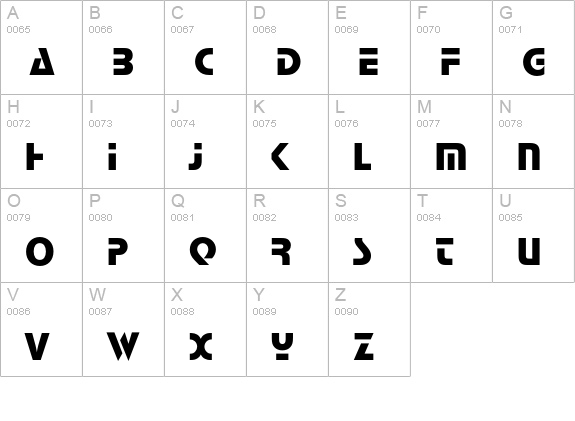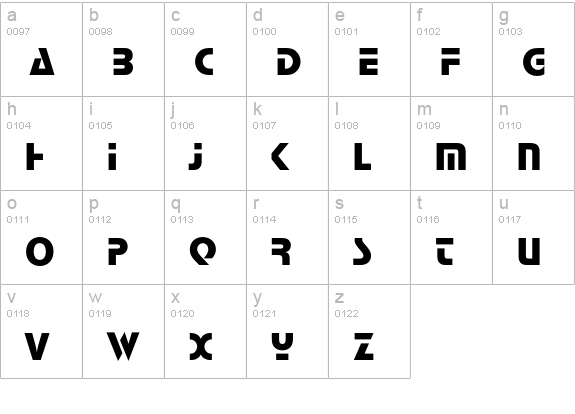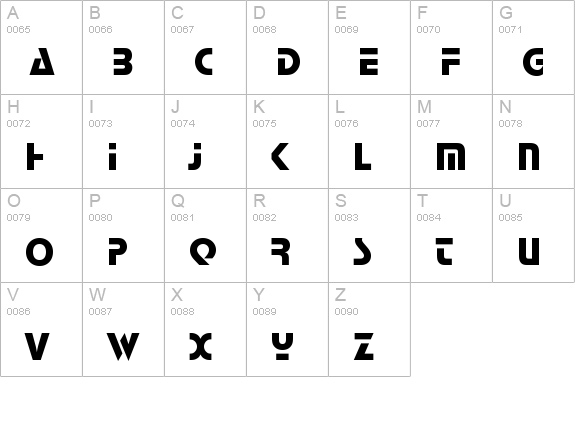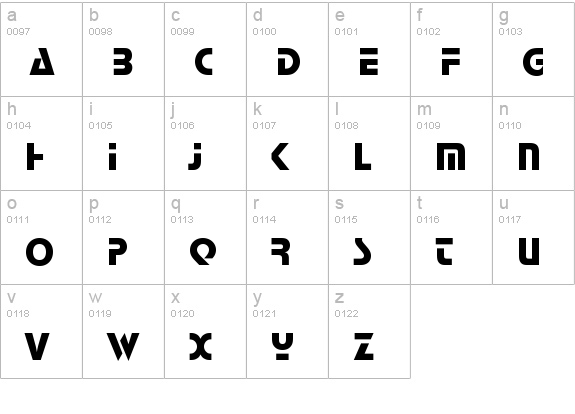
Introducing StopEF font, a modern and stylish typeface designed to make your designs stand out. This versatile font features clean lines and a sleek appearance, making it perfect for a wide range of design projects. StopEF is not only visually appealing but also easy to read, making it ideal for both digital and print applications. What sets StopEF font apart is that it is available for free download at FontsMarket.com. This means you can easily access this high-quality font without any cost, making it a valuable addition to your font library. Whether you're working on branding, marketing materials, web design, or any other creative project, StopEF font is sure to elevate your work with its contemporary and professional look. Don't miss out on the opportunity to enhance your designs with the StopEF font. Download it for free today at FontsMarket.com and take your projects to the next level!